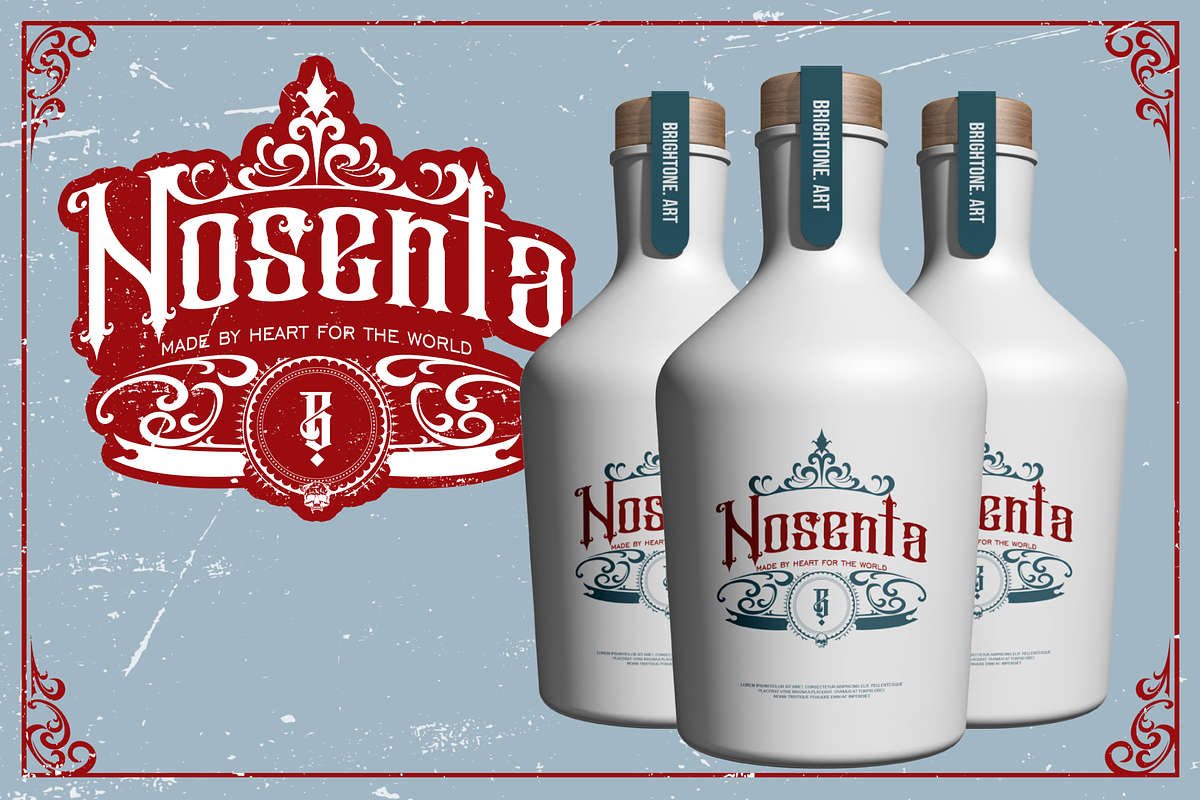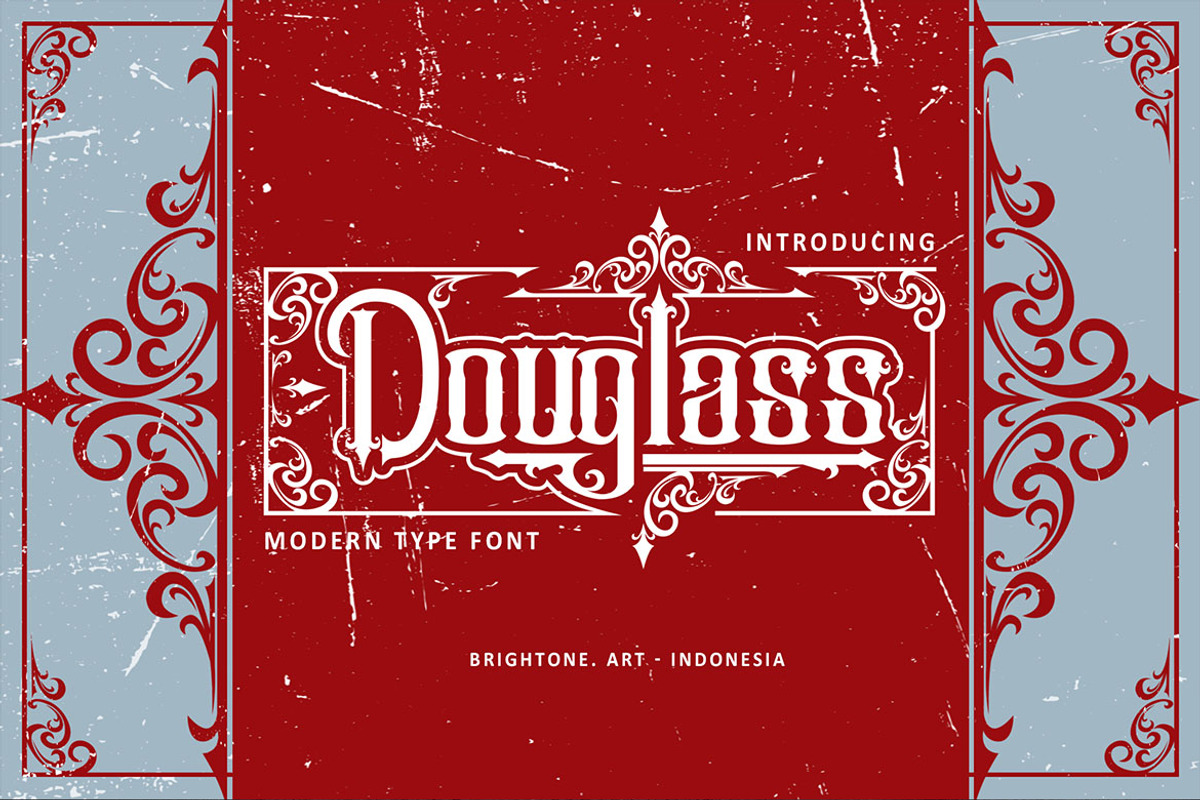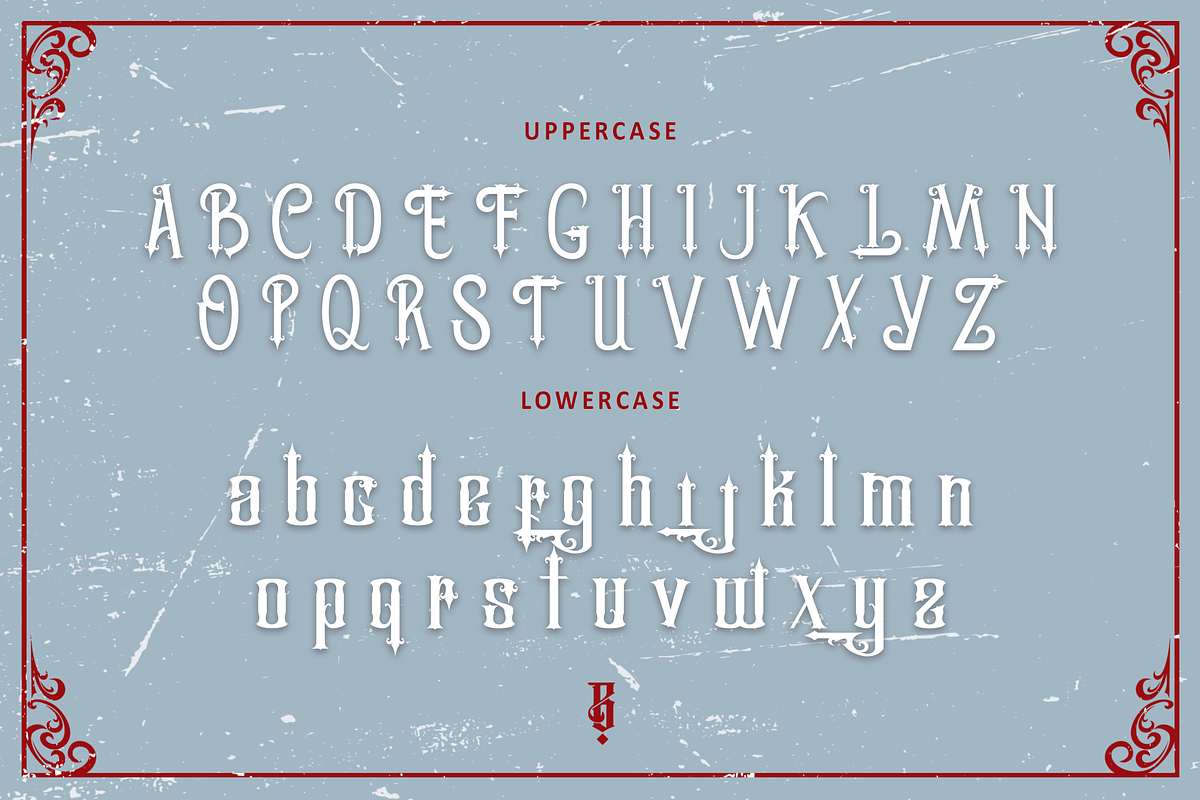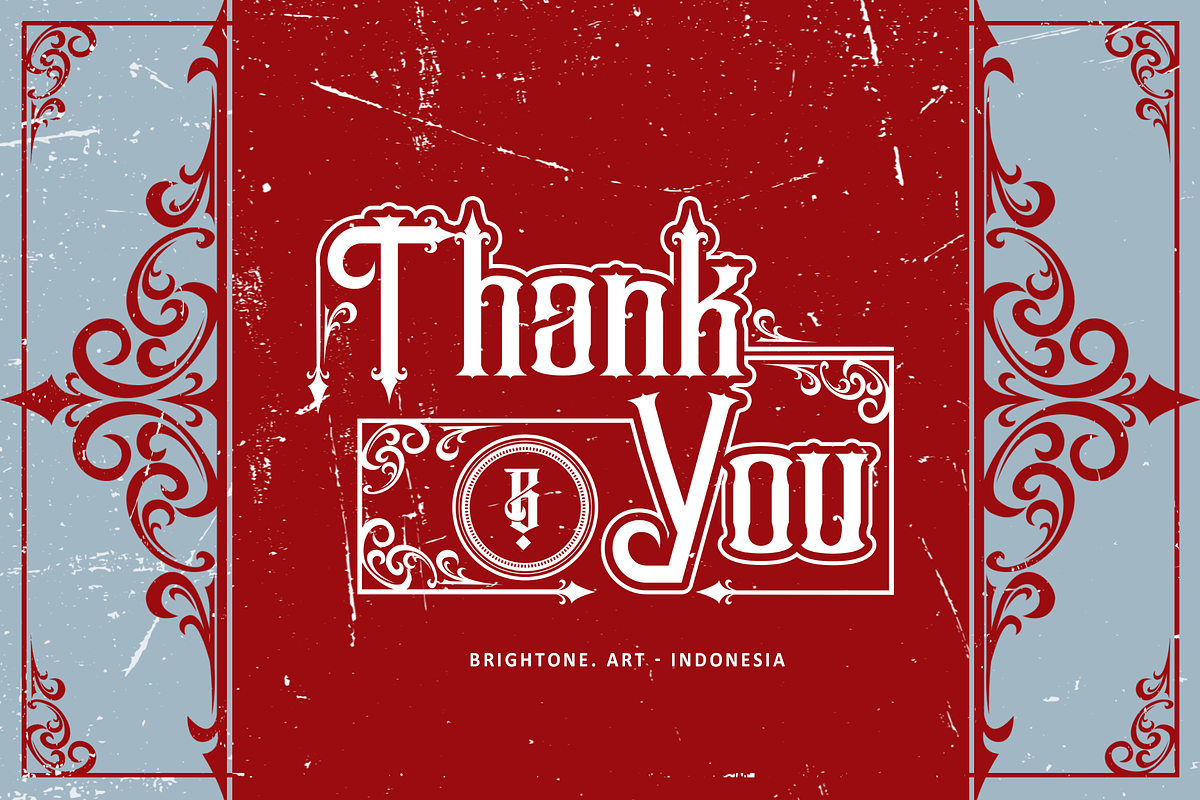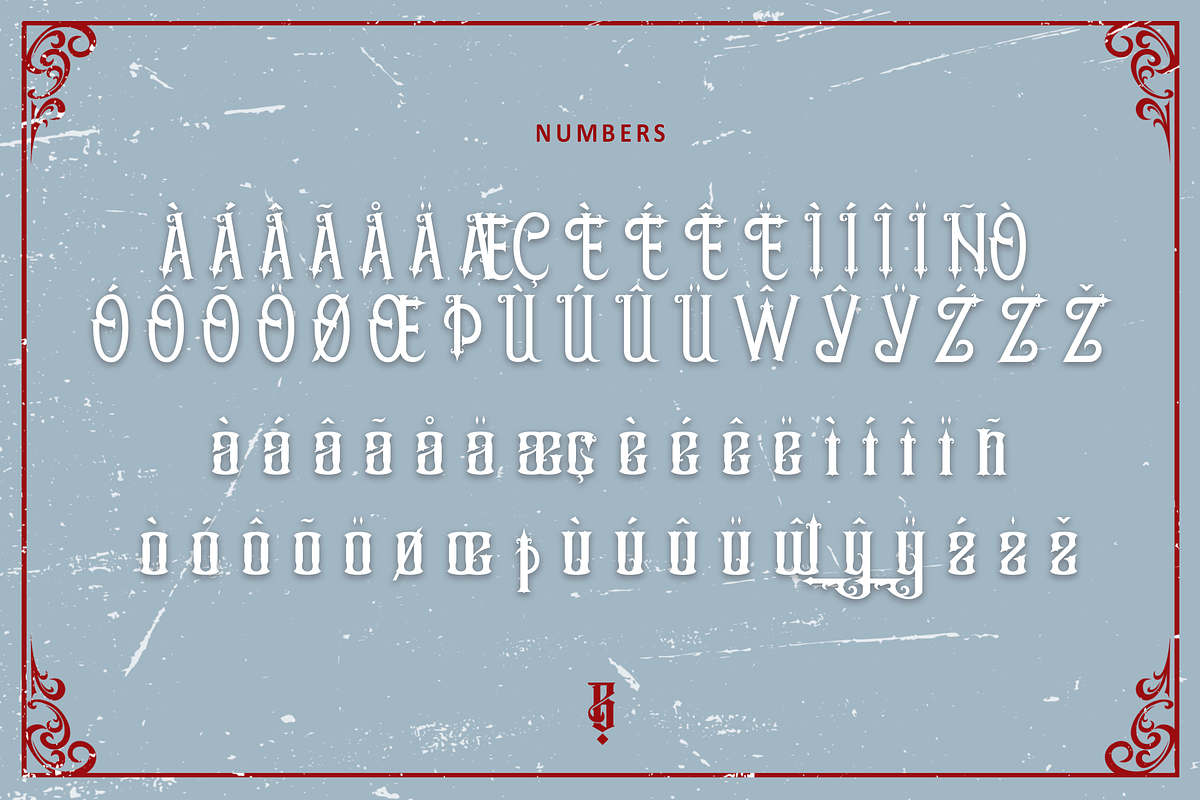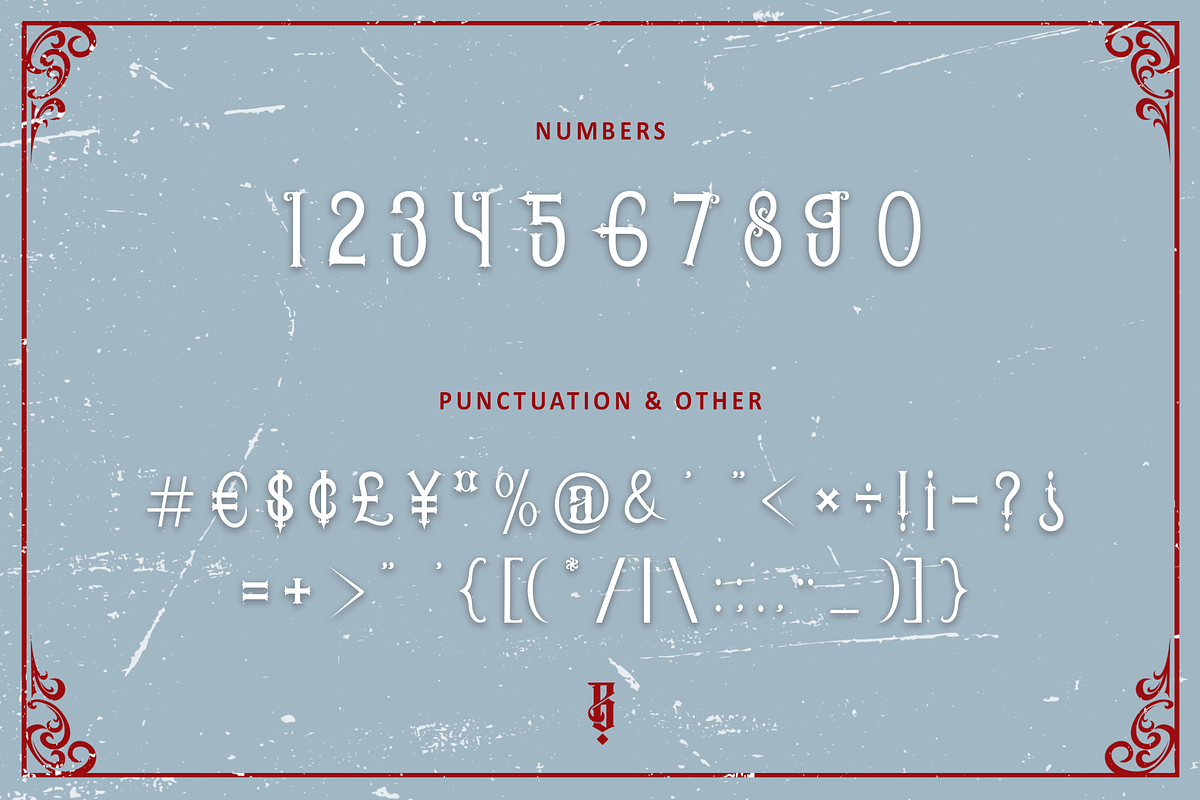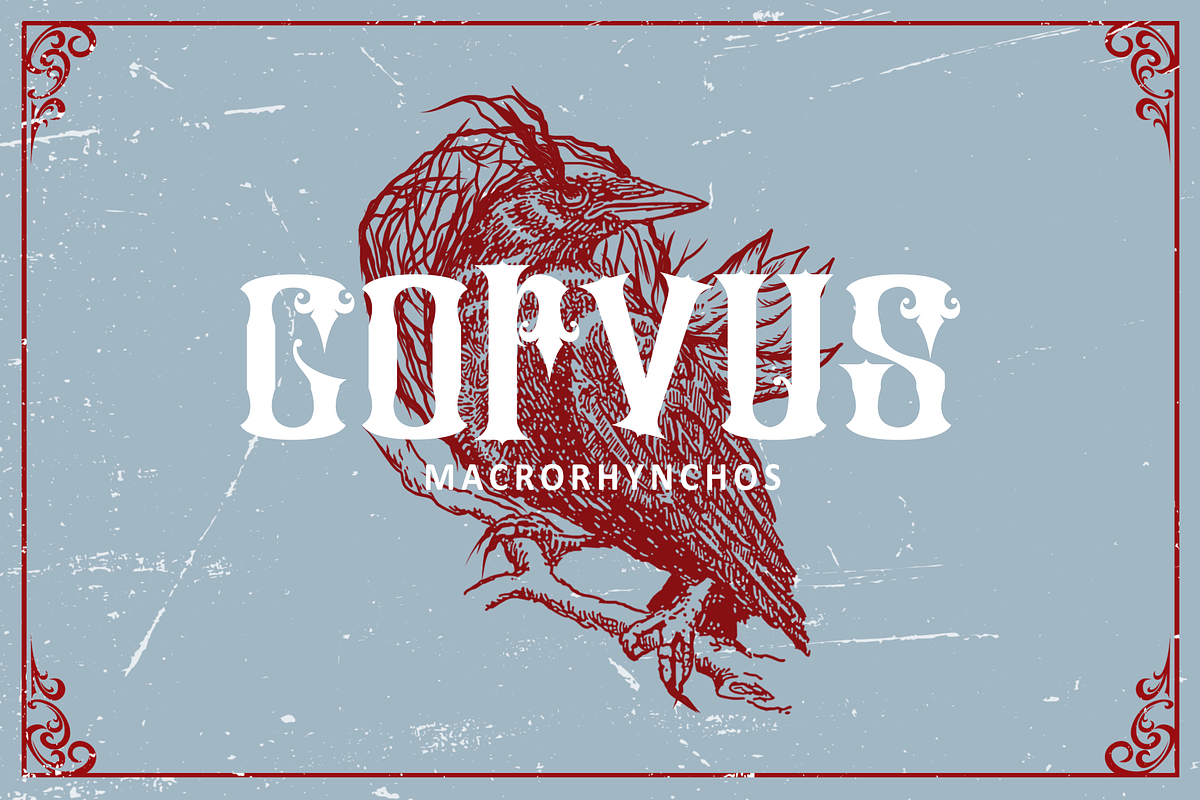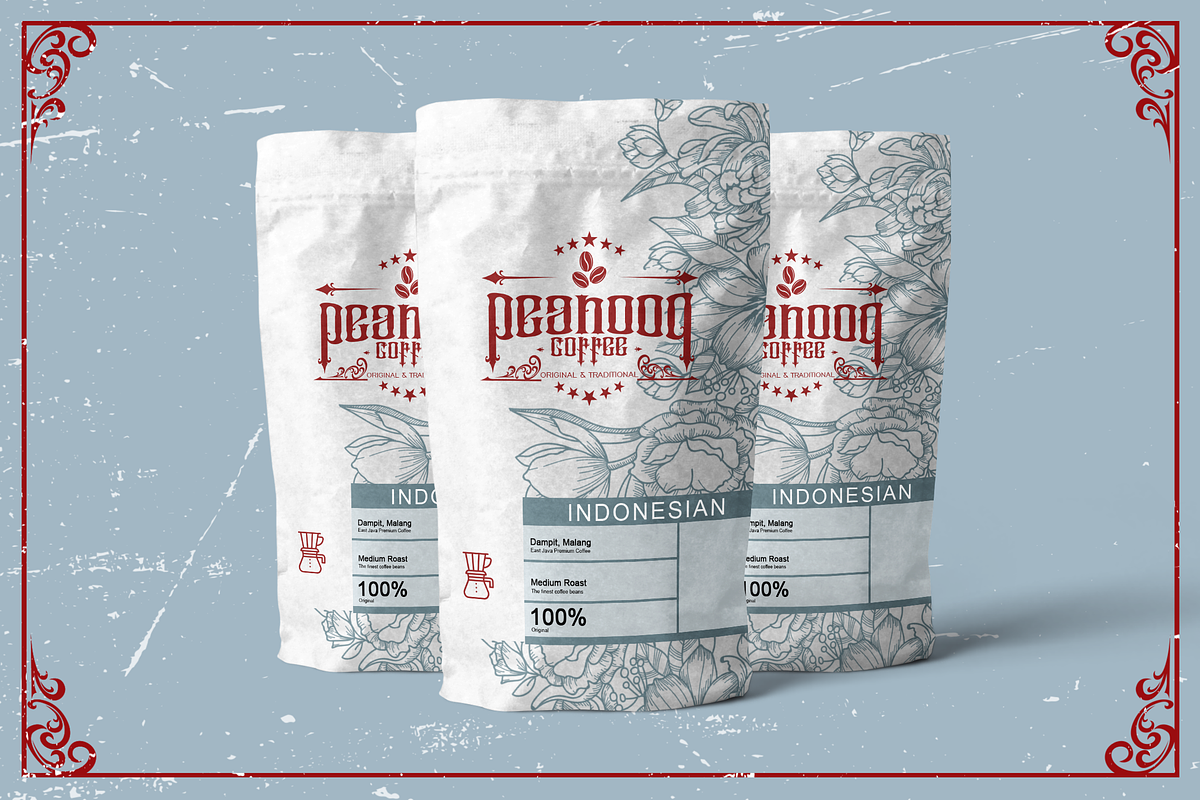
Douglass - blackletter
DOUGLASS is blackletter font with classic style includes uppercase letters, numerals, a large range of punctuation and multilingual support. blackletter font with tattoo style for your logo lettering, shirt design, logo, label, packaging, sticker, branding etc